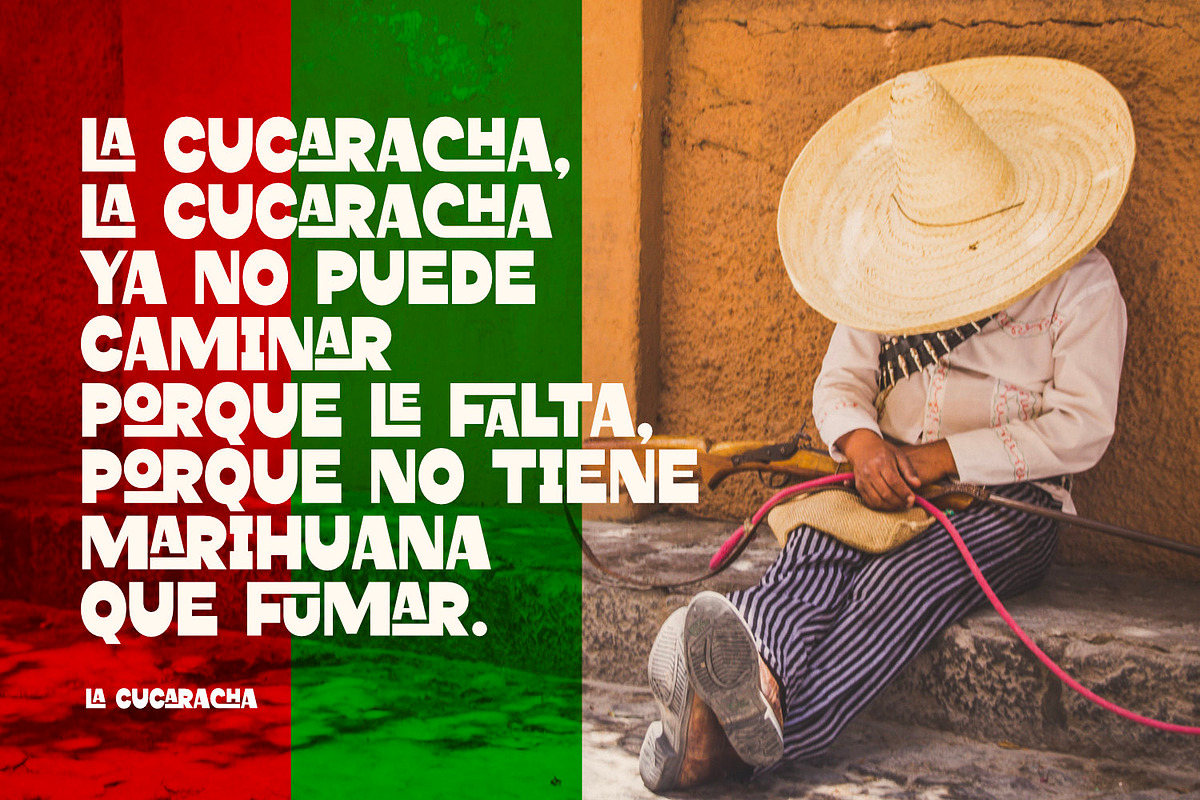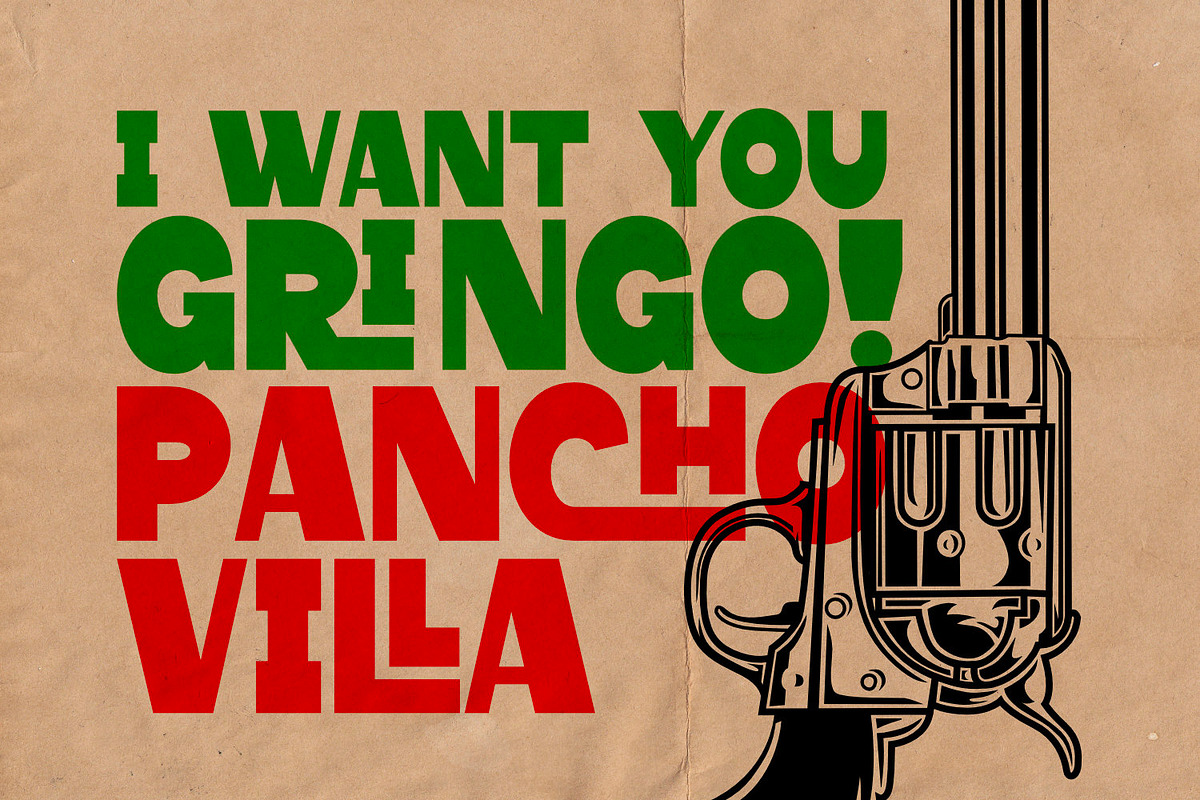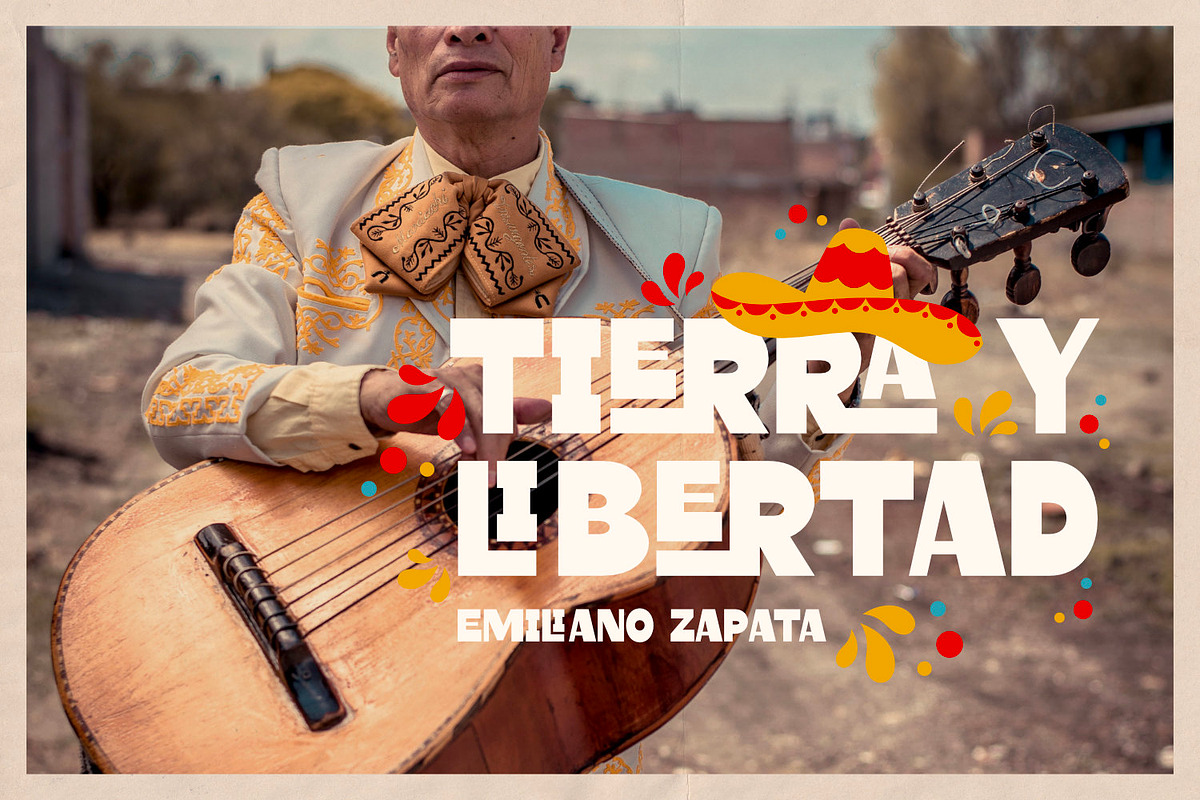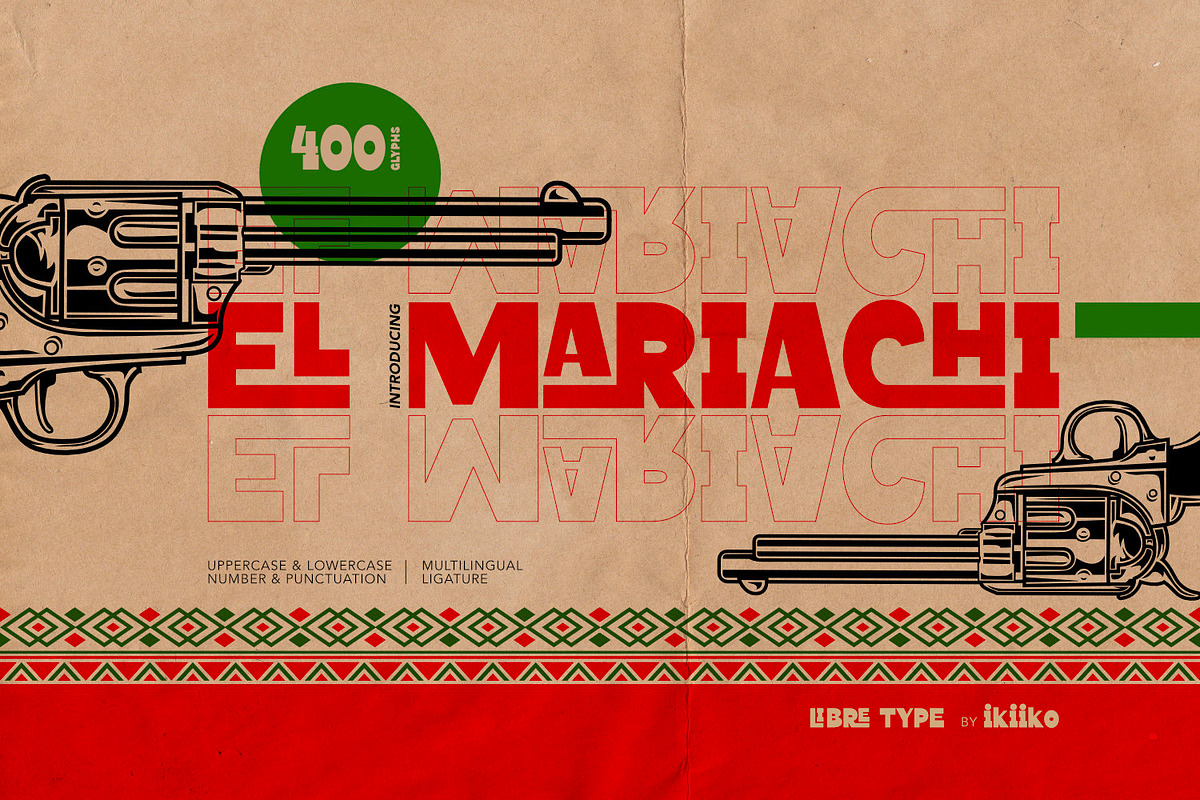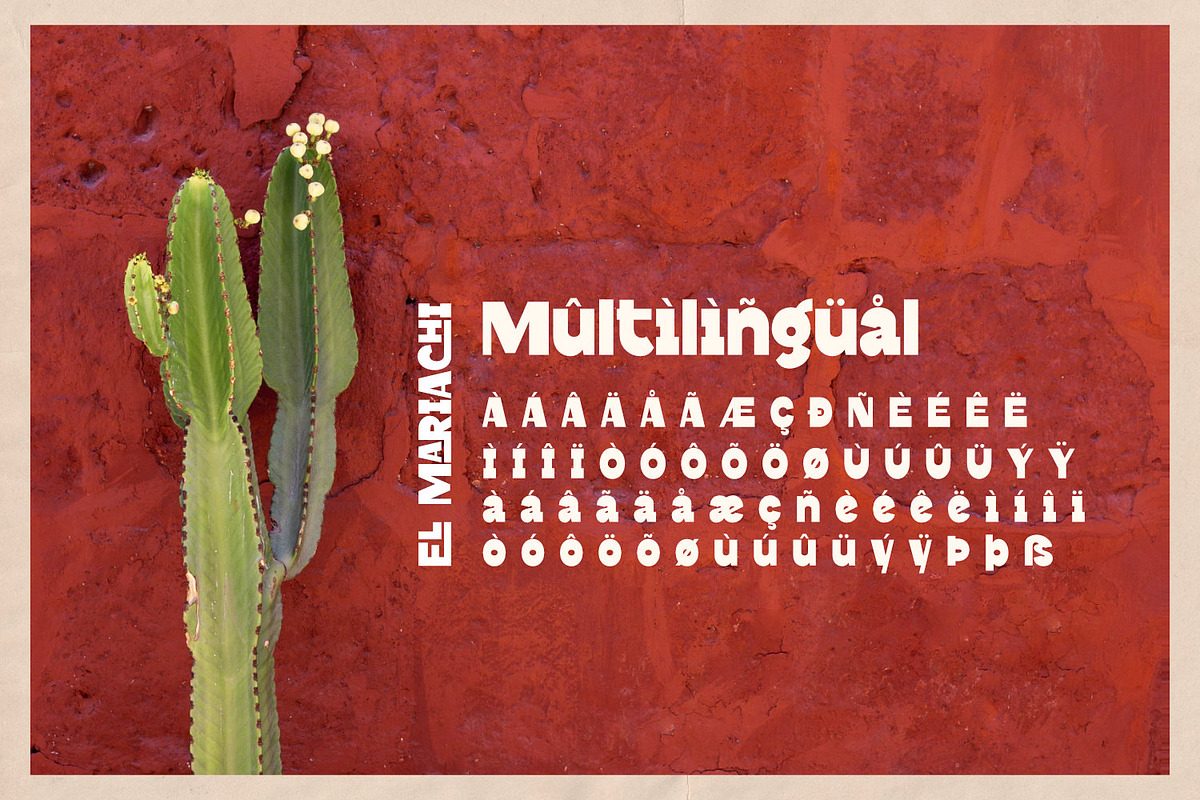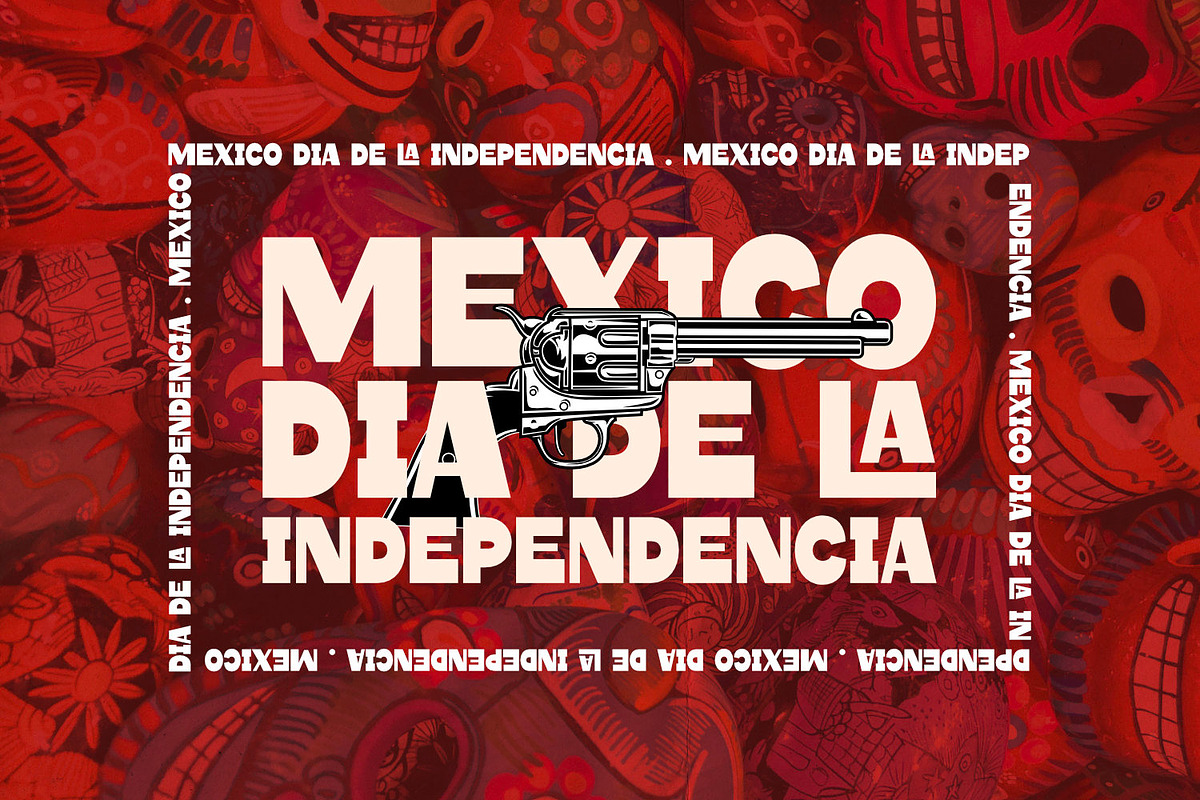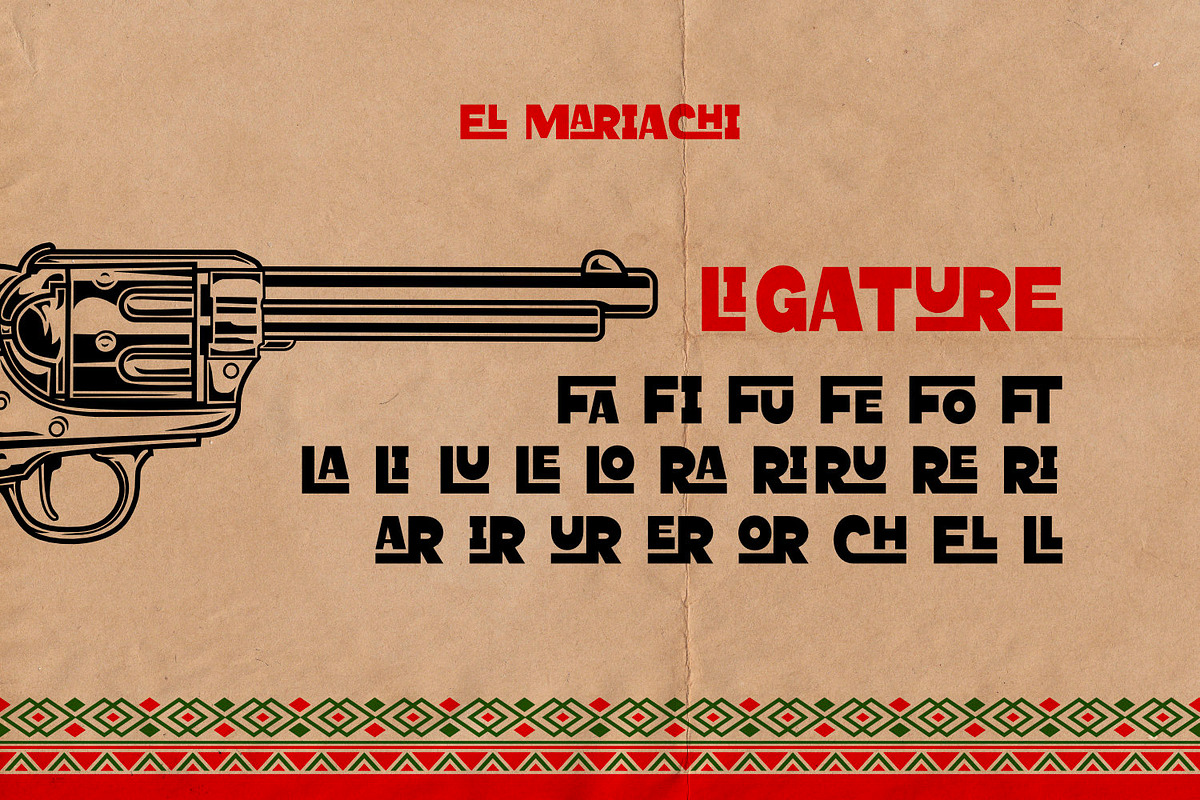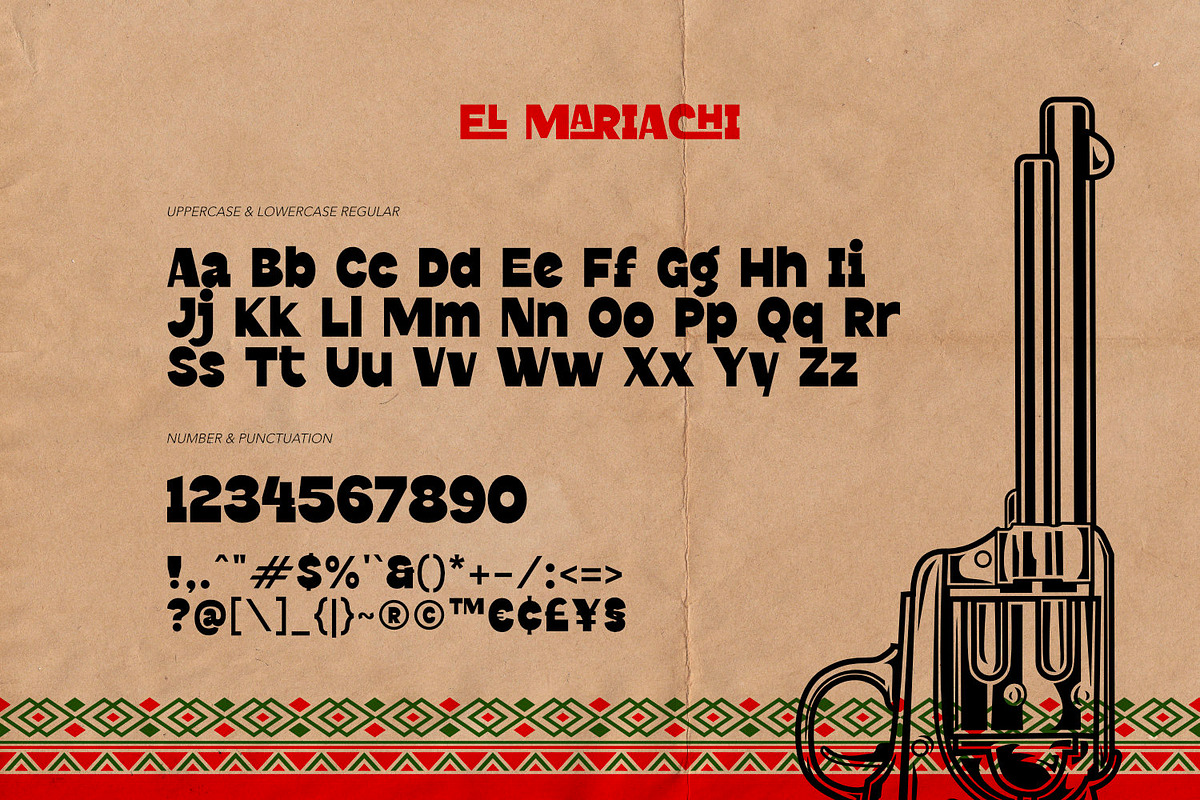
El Mariachi - Libre Type
Introducing El Mariachi - Libre Type, created by ikiiko.
El Mariachi is a unique typeface inspired by a Mexican vibe. A simple, bold sans serif typeface combined with attractive ligatures gives this font a strong character. This font is perfect to create layout for vintage design, mexican brand product, movie poster, food packaging, fashion product, and another fun project to a have unique or vintage look.
- Number & Punctuation